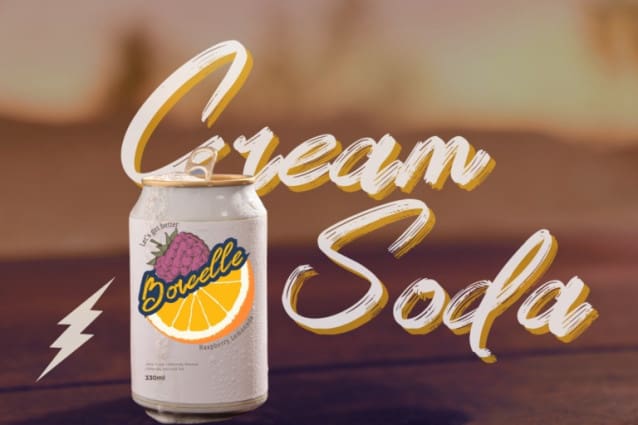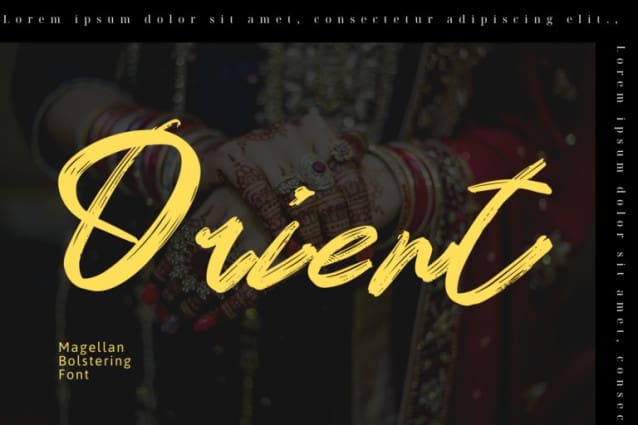
Magellan Bolstering Font
Magellan Bolstering Font | Brush Handwritten Font, with an elegant yet bold. Featuring fluid strokes and natural ink textures, it exudes authenticity and sophistication, making it perfect for logos, branding, invitations, and artistic typography projects. Its dynamic letterforms and organic flow bring a handcrafted charm to any design.